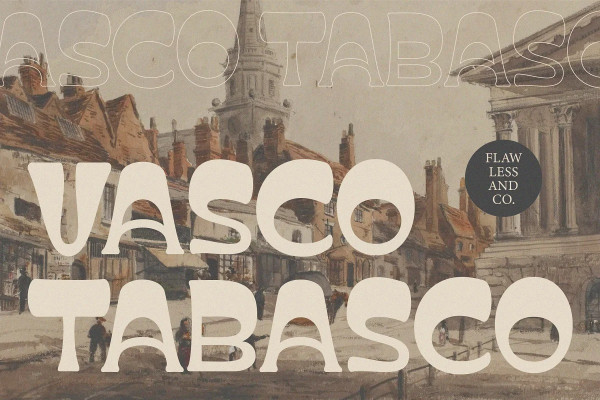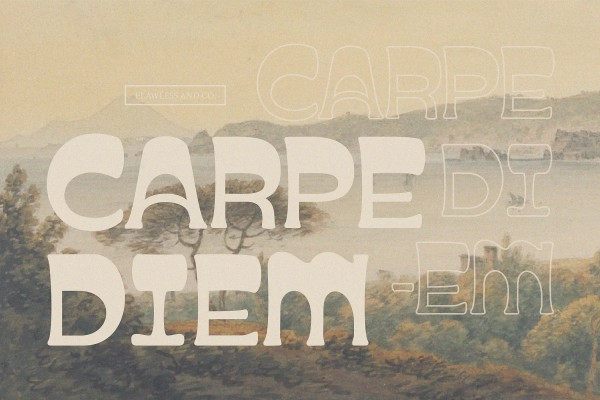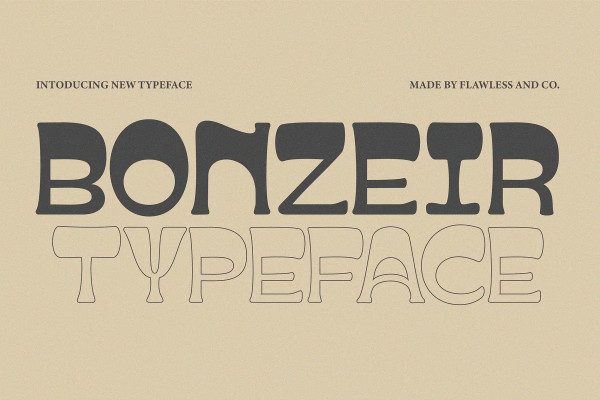
BONZEIR TYPEFACE
Bonzeir Typeface – Modern Boho Retro Font, our new “Bonzeir” Modern Retro with Fun and Elegant Style is perfect for branding, logos, invitation, master heads, and more.